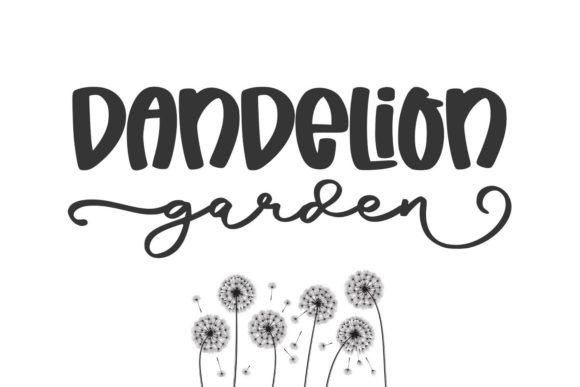
Introducing the captivating and enchanting Dandelion Garden Duo Font! This remarkable font family, created by the talented Abodaniel, is designed to add a touch of playfulness and authenticity to your designs.
With its charming and adorable aesthetic, Dandelion Garden is the perfect choice for various creative projects. Whether you're working on lettering, quotes, logos, t-shirt designs, mugs, tote bags, cards, banners, or social media content, this font duo will infuse your creations with a fresh and friendly vibe.
What sets Dandelion Garden apart is its incredible versatility. It effortlessly adapts to any design concept, making it an ideal choice for both personal and professional projects.
Embrace the captivating beauty of Dandelion Garden and let it transport your audience to a world filled with joy and inspiration. Its unique blend of elegance and whimsy will leave a lasting impression on anyone who lays eyes on your designs.